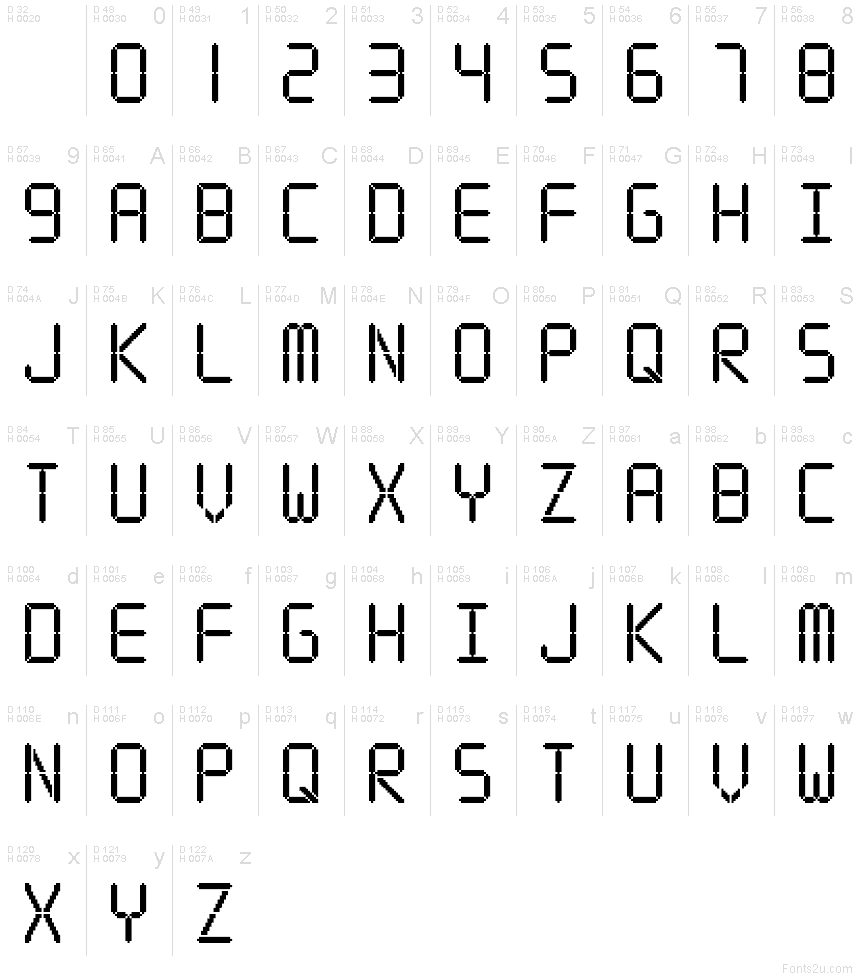
Digital Clock Regular
Digital Clock font by PixelMoondust is a free digital display typeface. It channels classic seven-segment numerals with crisp, monoline strokes and angular joins that click together like LEDs on a hardware panel. The rhythm is tightly gridded and mechanical, so your numbers and letters lock into place with that satisfying, retro-tech glow—even without effects.
Using Digital Clock, you can nail countdown timers, dashboards, sci‑fi HUDs, sports scoreboards, escape room signage, retro tech posters, and streaming overlays. This free font reads instantly at a glance, thanks to its modular shapes and even spacing; bump the size and add a hair of tracking for extra clarity. Pair it with a clean neo‑grotesk sans for body copy to keep the interface readable while the headline ticks away.
This was my first attempt at creating a font. Some characters are imperfect.
Made in FontStruct.